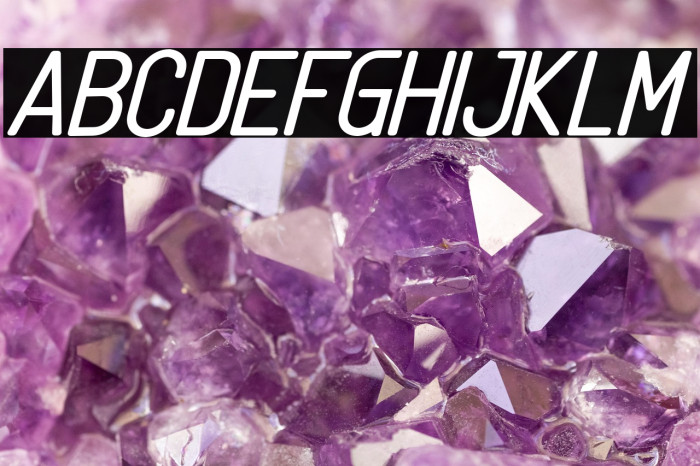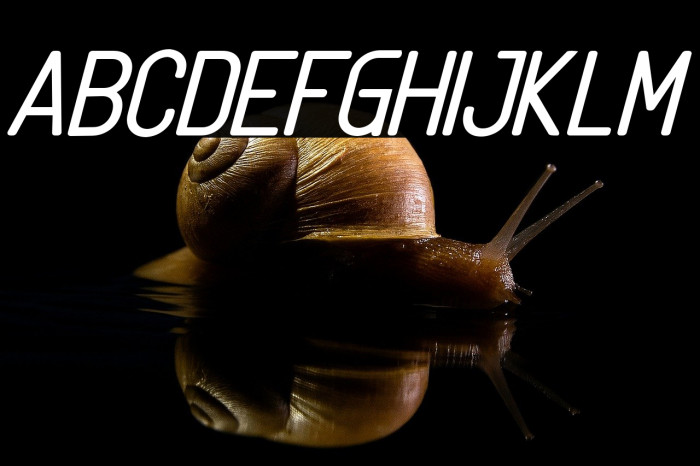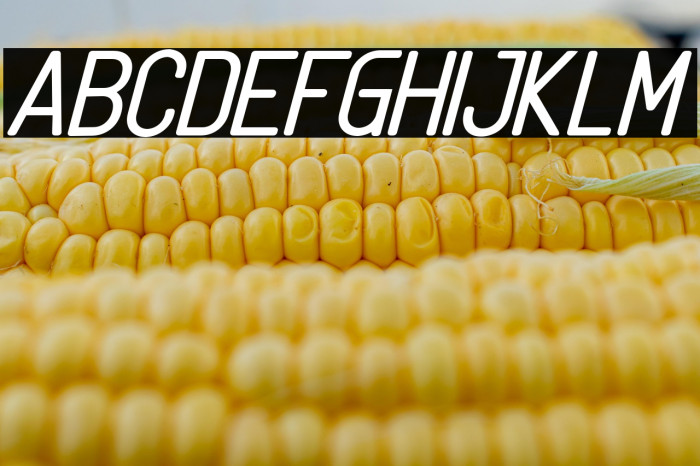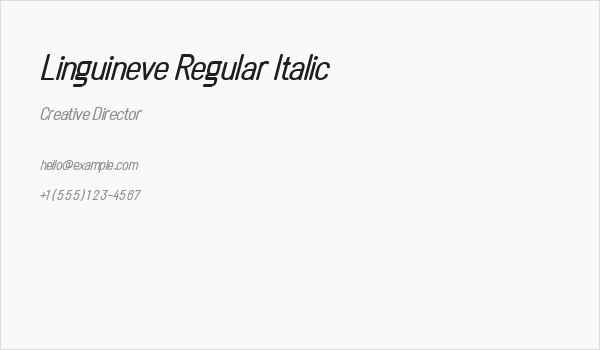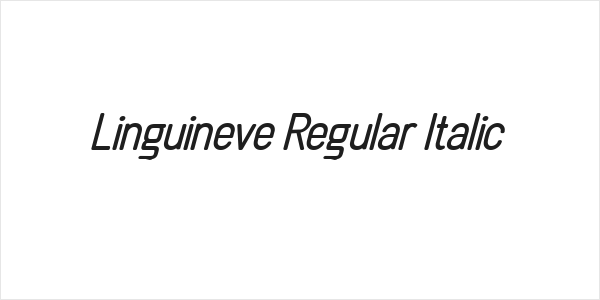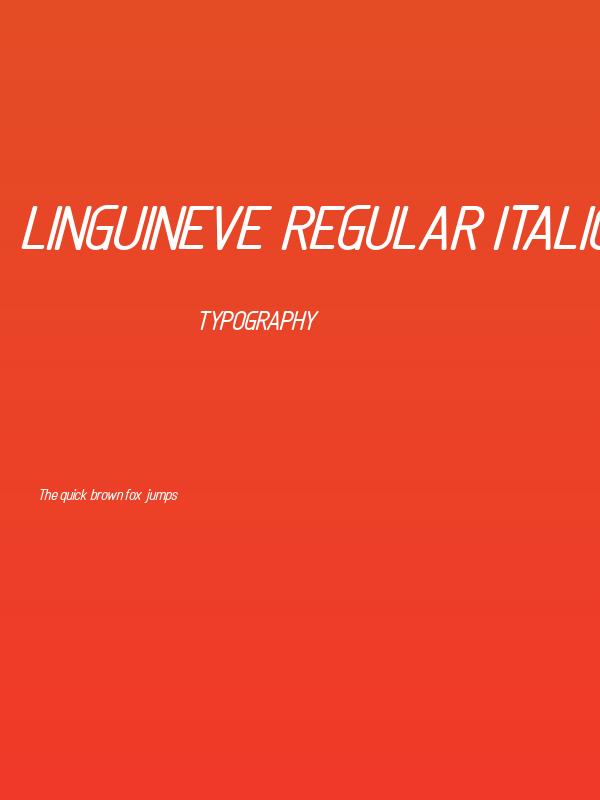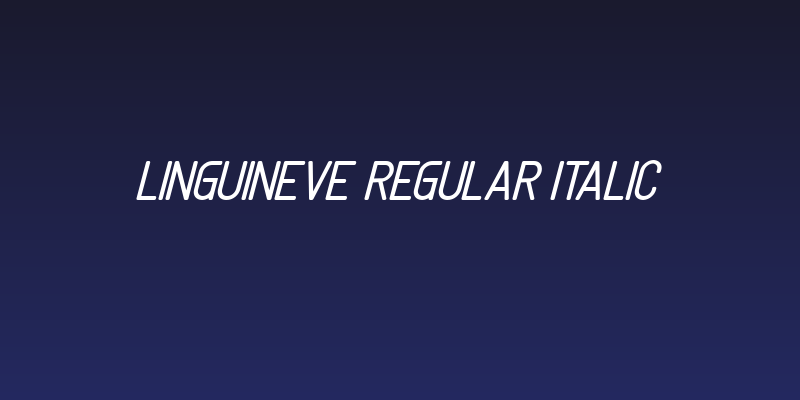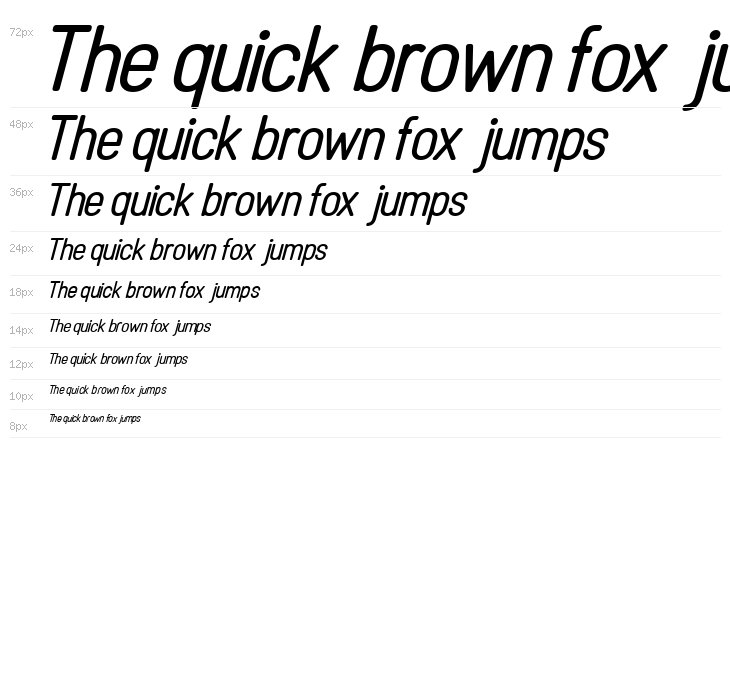
Linguineve Regular Italic Font
Linguineve Regular Italic Description
This font features a sleek and modern design with a slight italic slant, giving it a dynamic and forward-moving appearance. The characters are sans-serif, providing a clean and uncluttered look. Each letter is crafted with a consistent stroke width, contributing to a uniform and harmonious appearance. The font maintains a moderate character spacing, ensuring readability while preserving its stylish aesthetic. The numerals and special characters are designed to match the overall style, making it versatile for various applications.
| Proposed Projects | Ideal for branding, advertising, and editorial design where a modern and dynamic look is desired. |